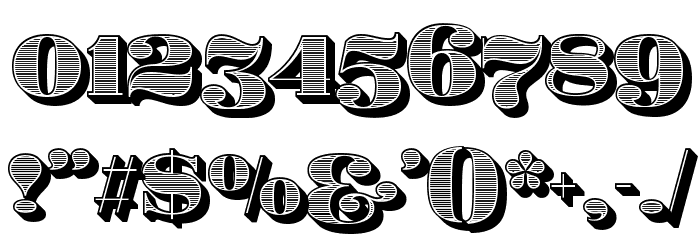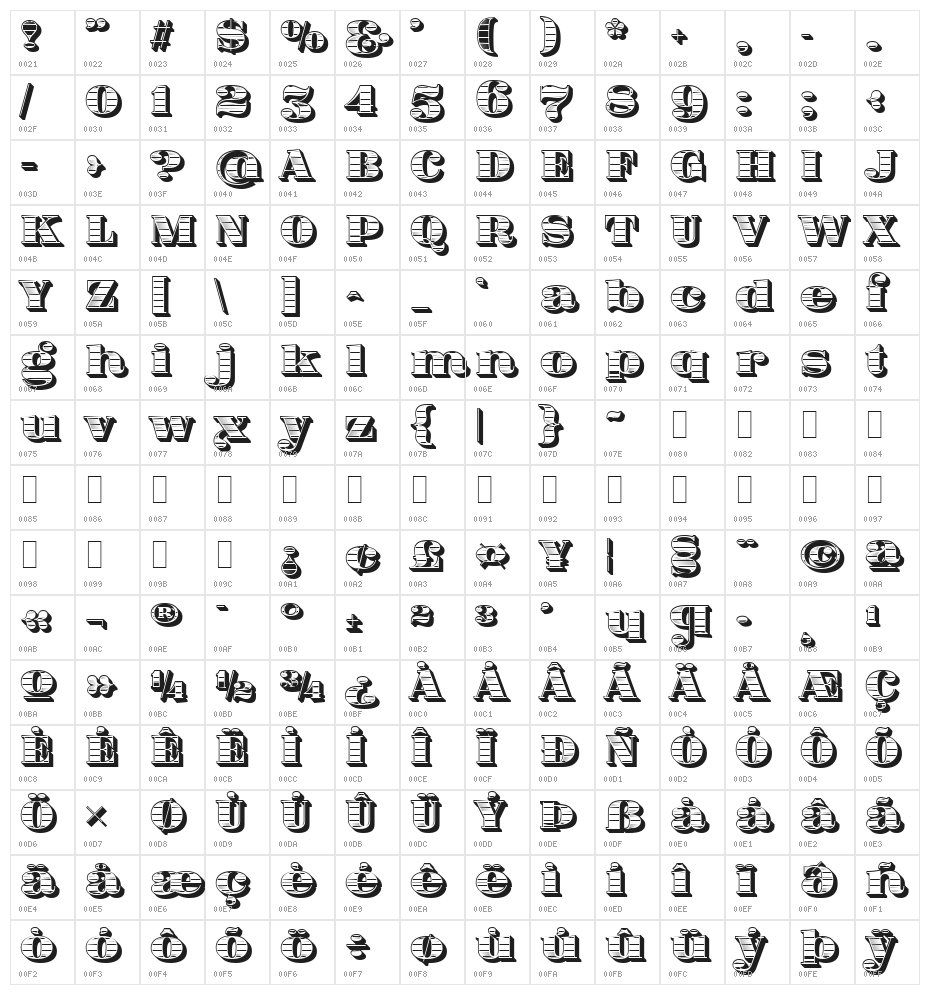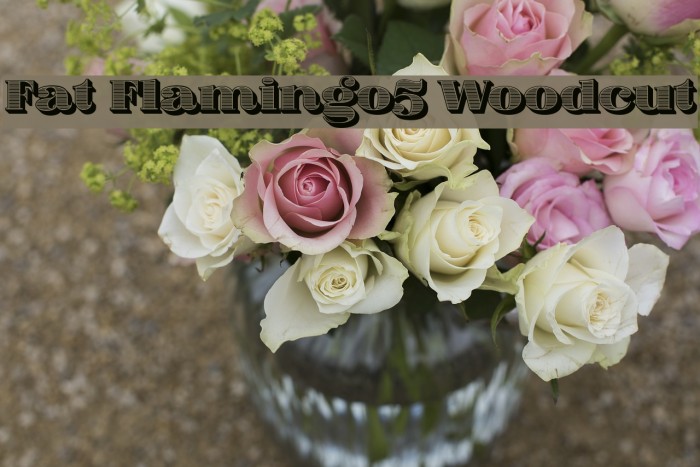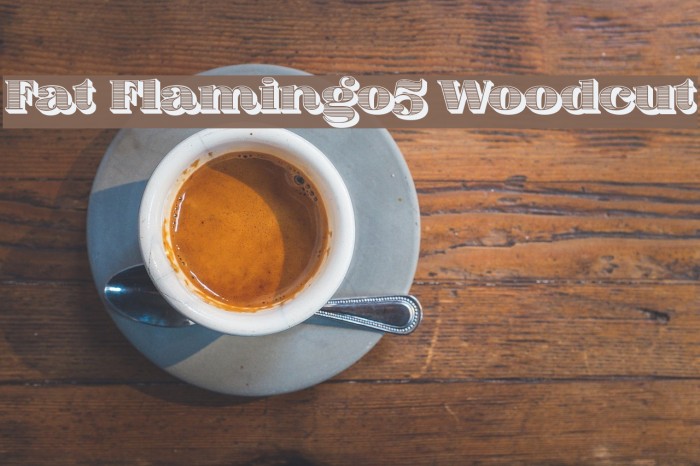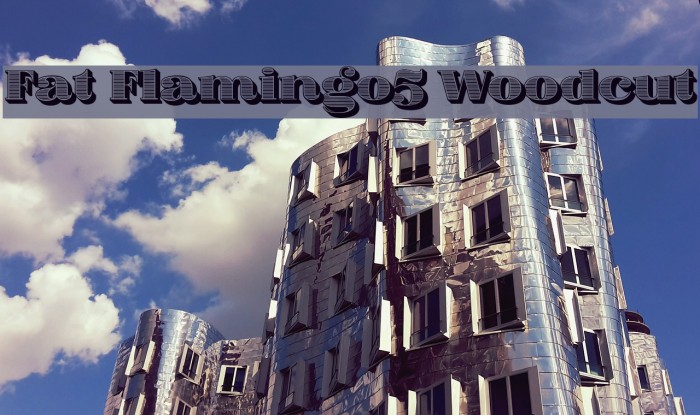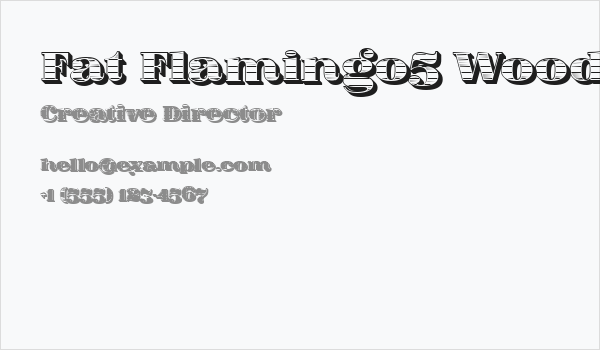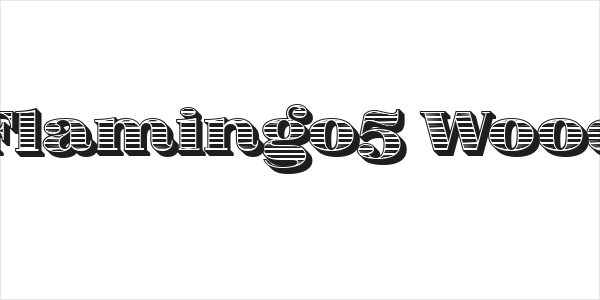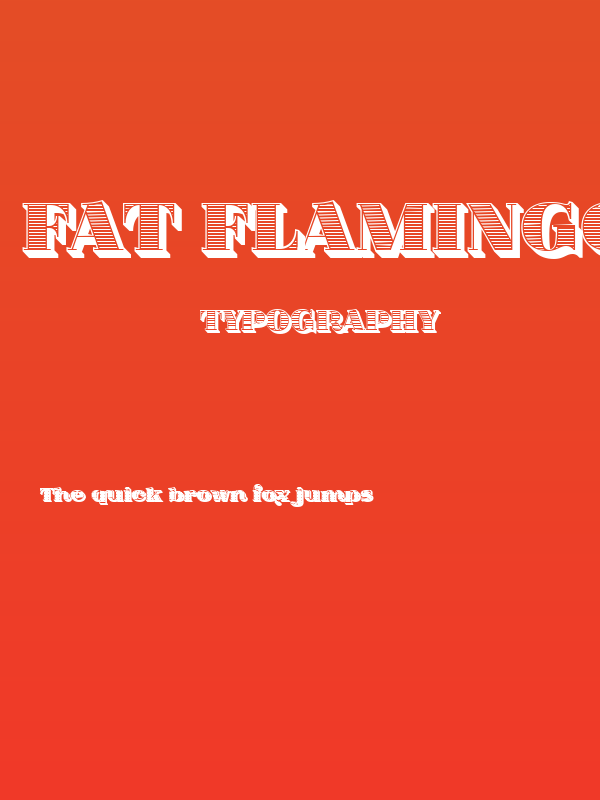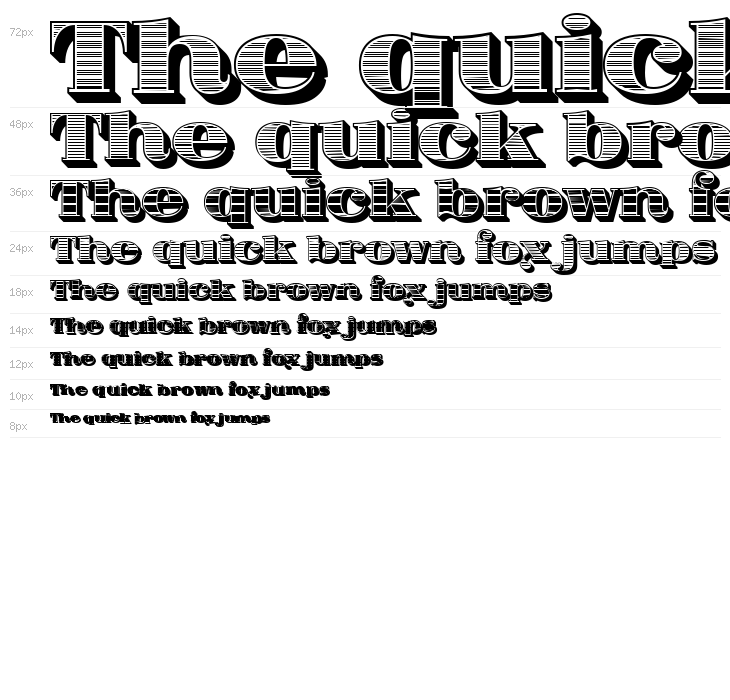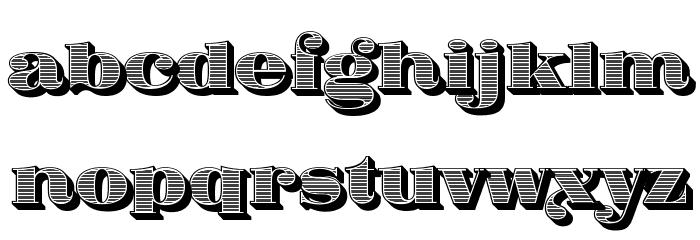
Fat Flamingo5 Woodcut Font
Fat Flamingo5 Woodcut Description
This font features a bold and striking design with a woodcut effect, characterized by thick, solid letterforms with horizontal lines running through each character. The uppercase and lowercase letters maintain a consistent style, offering a sense of uniformity and balance. The numerals and special characters follow the same aesthetic, ensuring a cohesive look across all text elements. The font's unique texture and depth make it stand out, providing a vintage yet modern appeal that is both eye-catching and versatile.
| Overall Style | Vintage, Decorative |
| Proposed Projects | Ideal for poster designs, branding projects, headlines, and any creative work that requires a bold, distinctive typeface. |